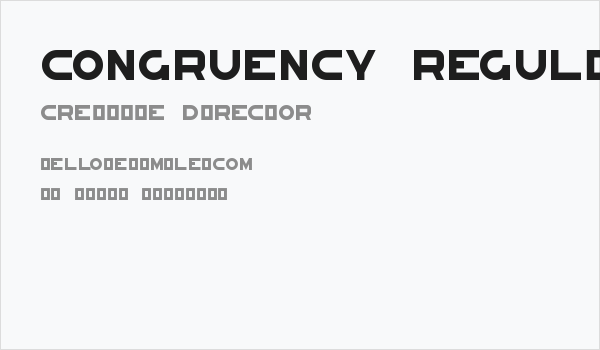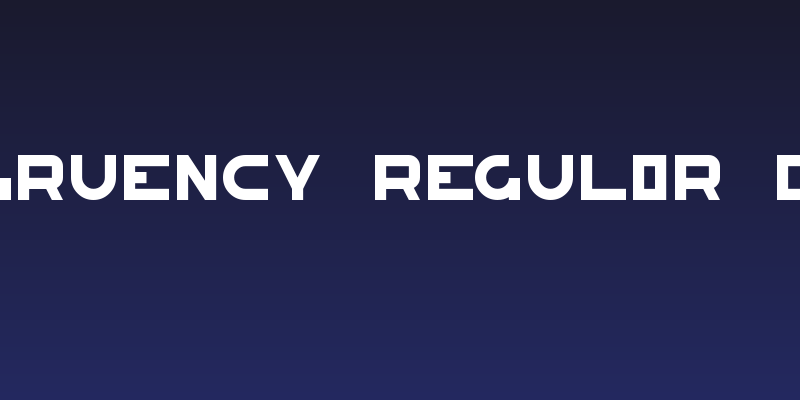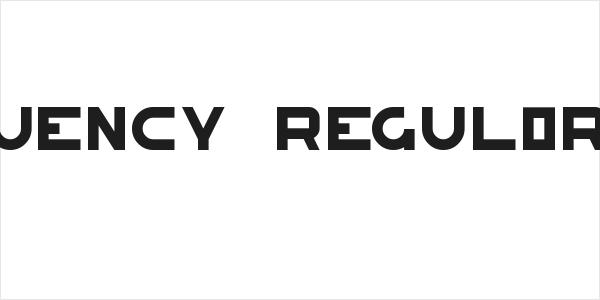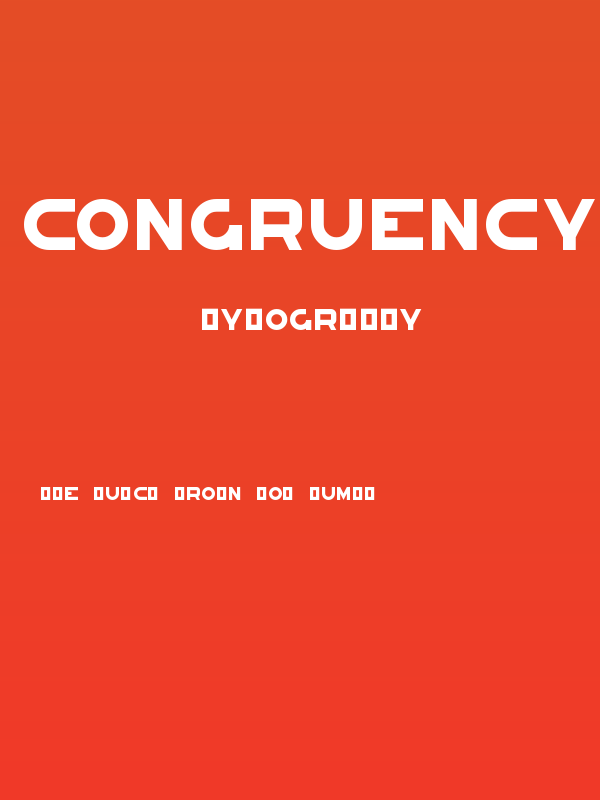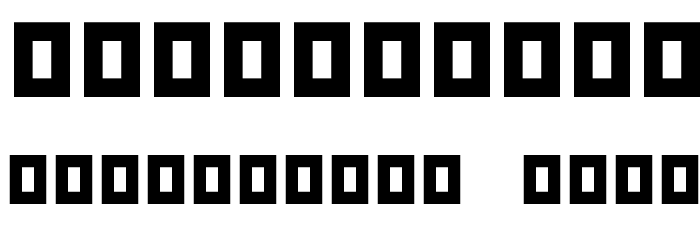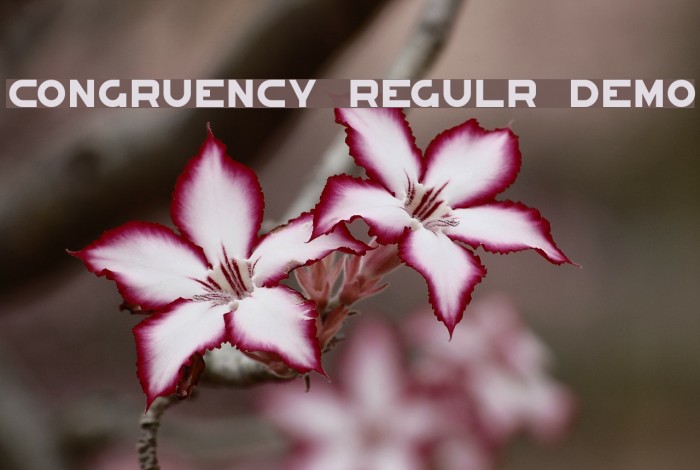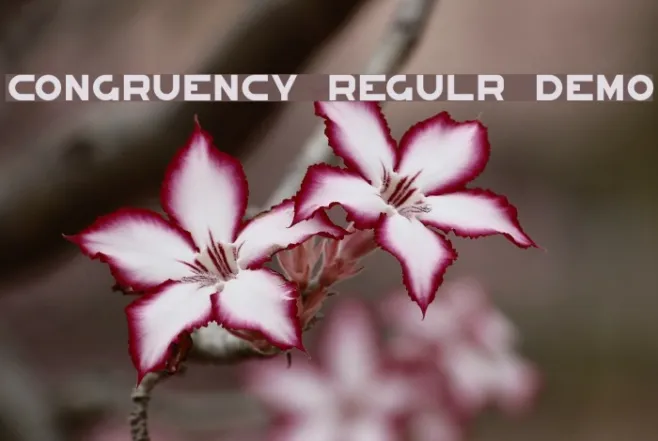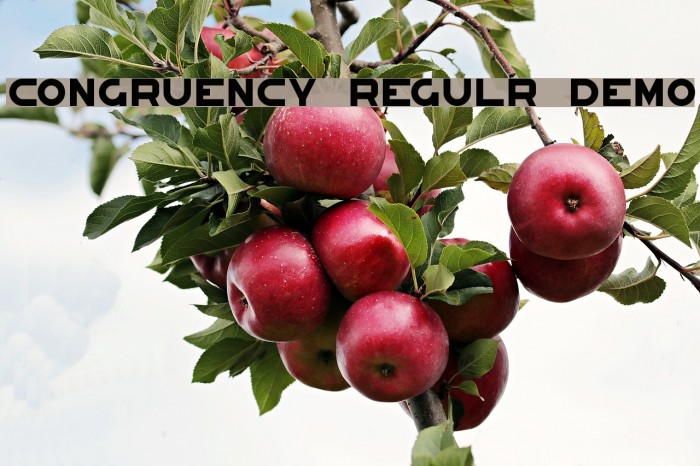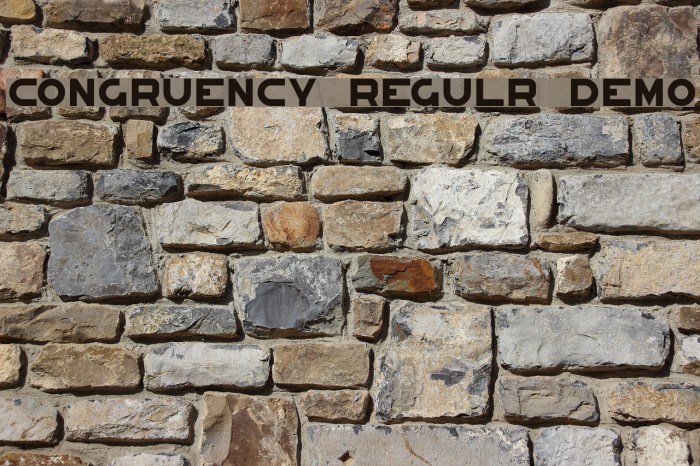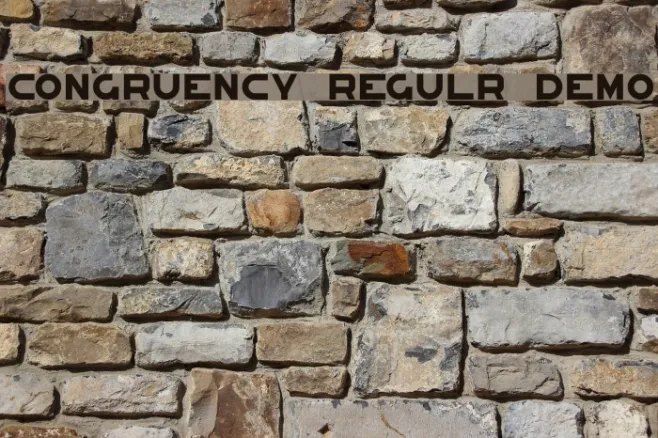
Congruency Regular Demo Font
Congruency Regular Demo Description
This font features a bold, geometric design with a strong emphasis on symmetry and uniformity. Each character is constructed with thick, block-like strokes, creating a sense of stability and strength. The letters are highly stylized, with a futuristic and digital aesthetic that is both modern and eye-catching. The consistent width and height of the characters contribute to a cohesive and structured appearance. This font is ideal for projects that require a bold statement or a modern, tech-inspired look.
| Proposed Projects | Ideal for technology branding, digital media, posters, and modern graphic design projects. |